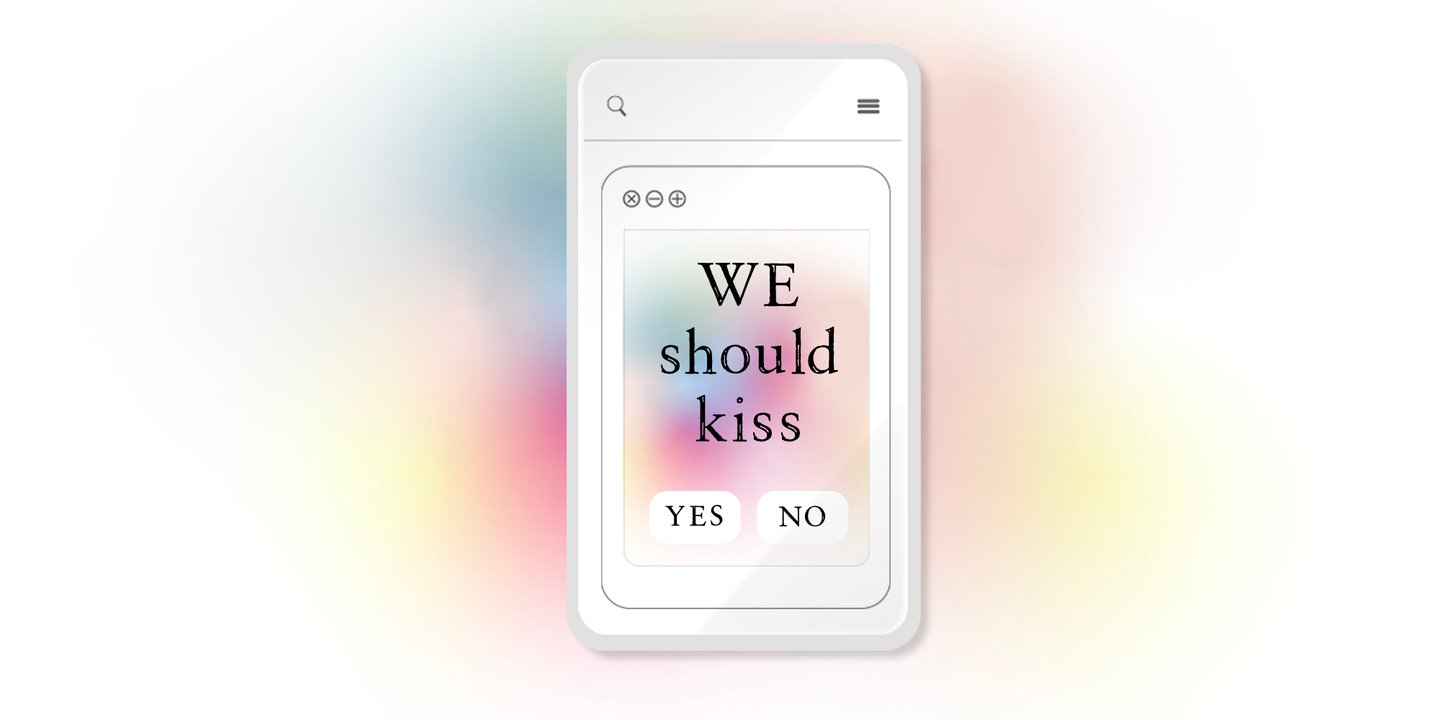
Please meet Torreta font. A serif typeface that is irregularly handcrafted with precision and focused on both aesthetic and legibility. Imperfectly perfect, some kind handcrafted, warm, welcoming, and classic. It gives any text a smooth, calming motion. With a good x-height to be easy to read, a medium contrast, an elegant small serif, and a proportioned ascender/descender relation.
Come with thoughtful Open Type features that make it multilingual. Also, contain several alternative vocals, ligatures, fraction and other variation of figures. It has more than 284 glyphs that support broad Latin languages.
Torreta is originally born for a child book named “La fábrica de etiquetas” (The tag factory) by Emma Piquer and beautifully illustrated for Calle. It was published by Juventud Editorial in July 2021.